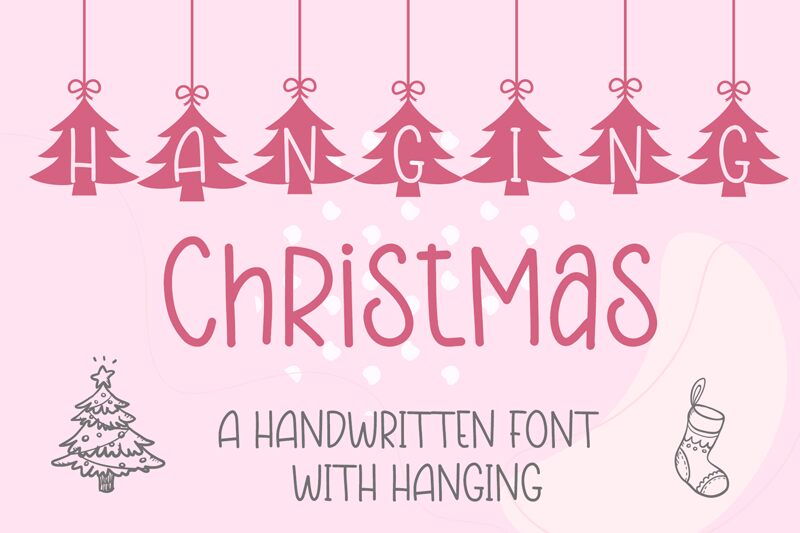
Hanging Christmas by Bearytype is a semi-light, condensed handwritten font that brings in the perfect Christmas vibe. With its unique and playful style, this font is perfect for a wide range of projects such as greeting cards, posters, invitations, and social media posts. It can also work well for branding projects that require a touch of personalization and warmth. The condensed width makes it an ideal option for designs that need to fit more text into limited space without sacrificing style. Let Hanging Christmas add a festive touch to your next project!